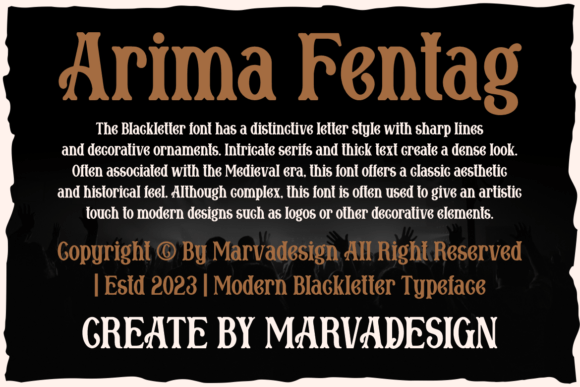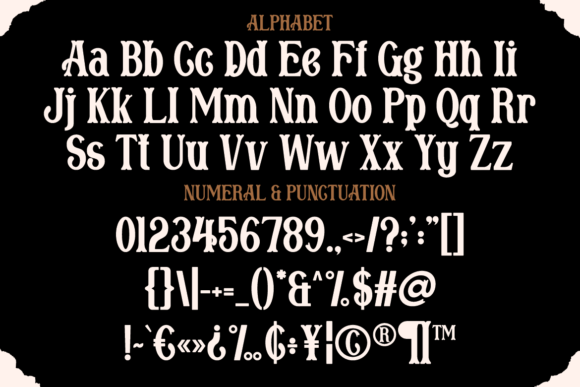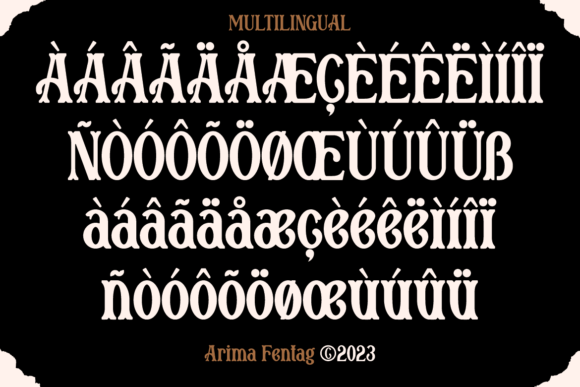
Arima Fentag Font
Arima Fentag is an old, fancy font with two parts to each letter. It has a classic, decorative style called blackletter, which looks like old Gothic or medieval writing.